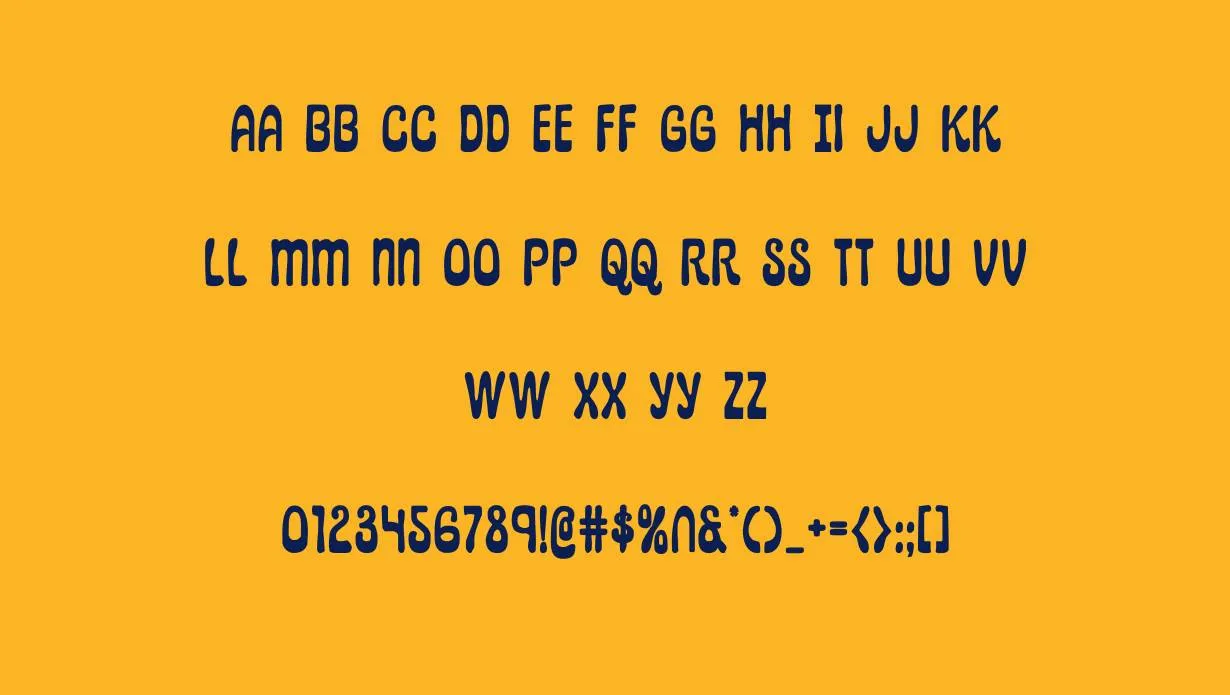
Iconian Fonts created the Pepperland Font and gain the attention of the viewers. Text style is having neat, clean, bold character shapes that make it perfect for enhancing the quality of your work.
Usage of Pepperland Font
It’ll also be used to form an excellent picture and content in numerous colors and styles. This typeface is mostly used for logos, flyers, website designs, brochures, and other graphic designs.
Design, cover, store names, and logos can all be created using this typeface. Additionally, the typeface can be used on branding projects and product packaging.
You can use this typeface to create commercials, presentations, packaging, posters, website templates, artwork, business cards, brochure layouts, T-shirt designs, logo designs, social media posts, and much more. Child’s Play Font is one of the best pairing options.
Pepperland Font Family View
Name | Pepperland Font |
Style | Fancy |
Designer | Iconian Fonts |
Pepperland Font Family
- Pepperland Regular
- Pepperland 3D Regular
- Pepperland Academy Regular
- Pepperland Gradient Regular
- Pepperland 3D Italic Italic
- Pepperland Academy Italic Italic
- Pepperland Bold Bold
- Pepperland Bold Italic Bold Italic
- Pepperland Condensed
- Pepperland Condensed Italic Condensed Italic
- Pepperland Extra-Bold
- Pepperland Extra-Bold Italic Extra-Bold Italic
- Pepperland Expanded
- Pepperland Expanded Italic Expanded Italic
- Pepperland Gradient Italic Italic
- Pepperland Italic Italic
- Pepperland Leftalic Italic
- Pepperland Rotalic Italic
Can I use the Pepperland Font for my logo design?
Yes, you’ll be able to utilize this typeface for your logo because it will give a unique and antique sense to your logo. It’ll assist you to make an attention-grabbing symbol design.
Is Pepperland Font appropriate for graphical design?
This typeface could be a great choice for graphical ventures. You’ll be able to utilize it for book covers, T-shirt designs, brochure formats, social media posts, etc.
Who designed Pepperland Font?
Iconian Fonts created this fancy typeface to gain the attention of the viewers. Text style is having neat, clean, bold character shapes that make it perfect for enhancing the quality of your work.